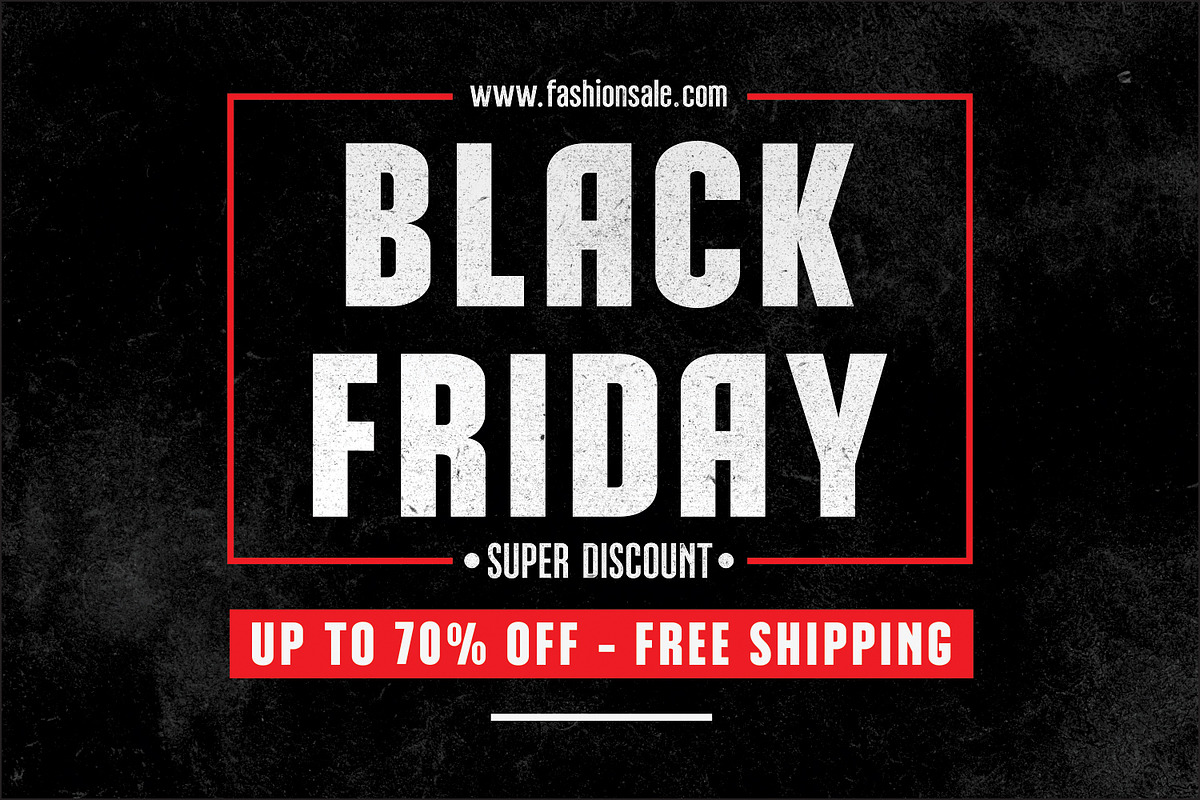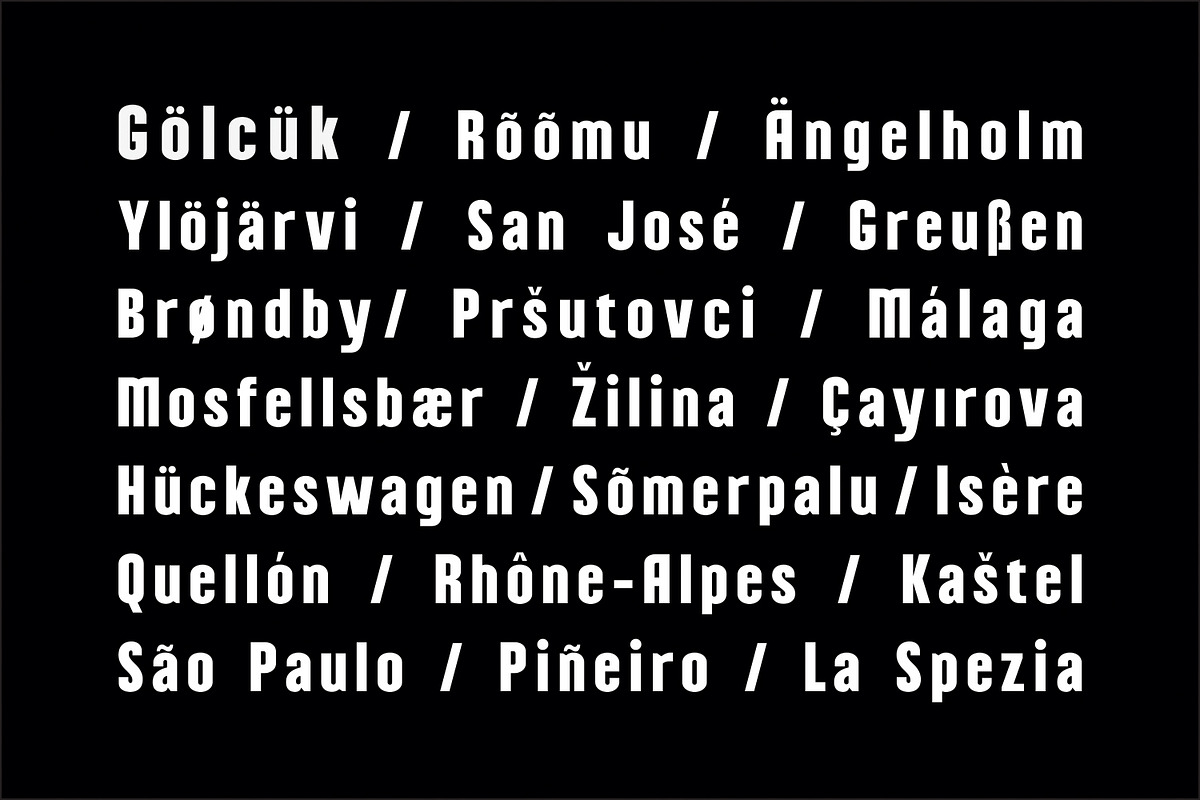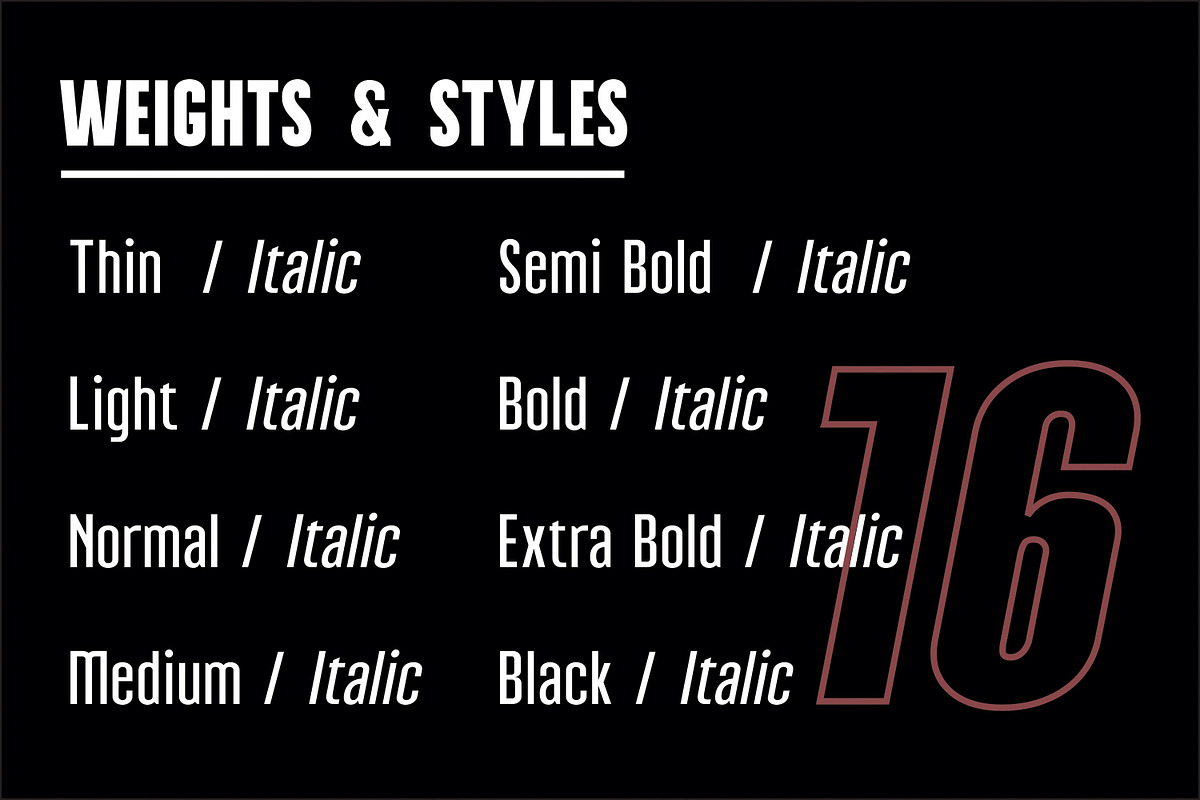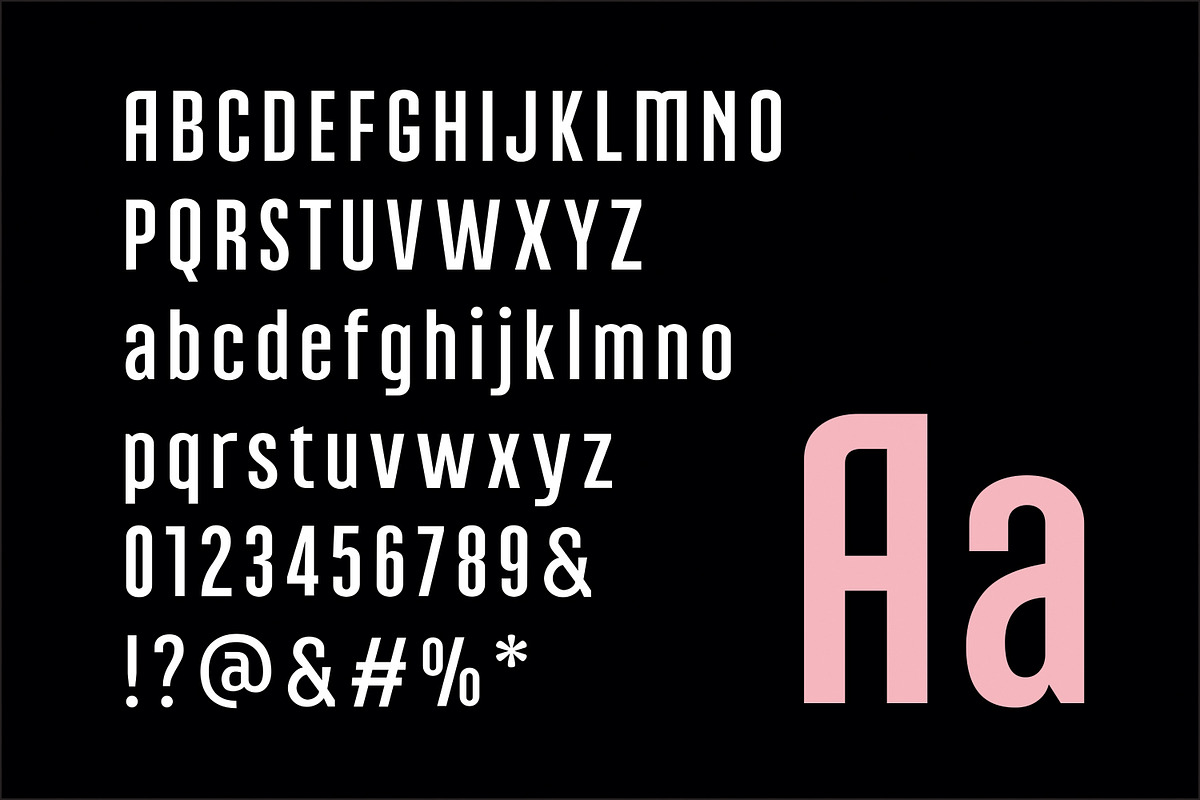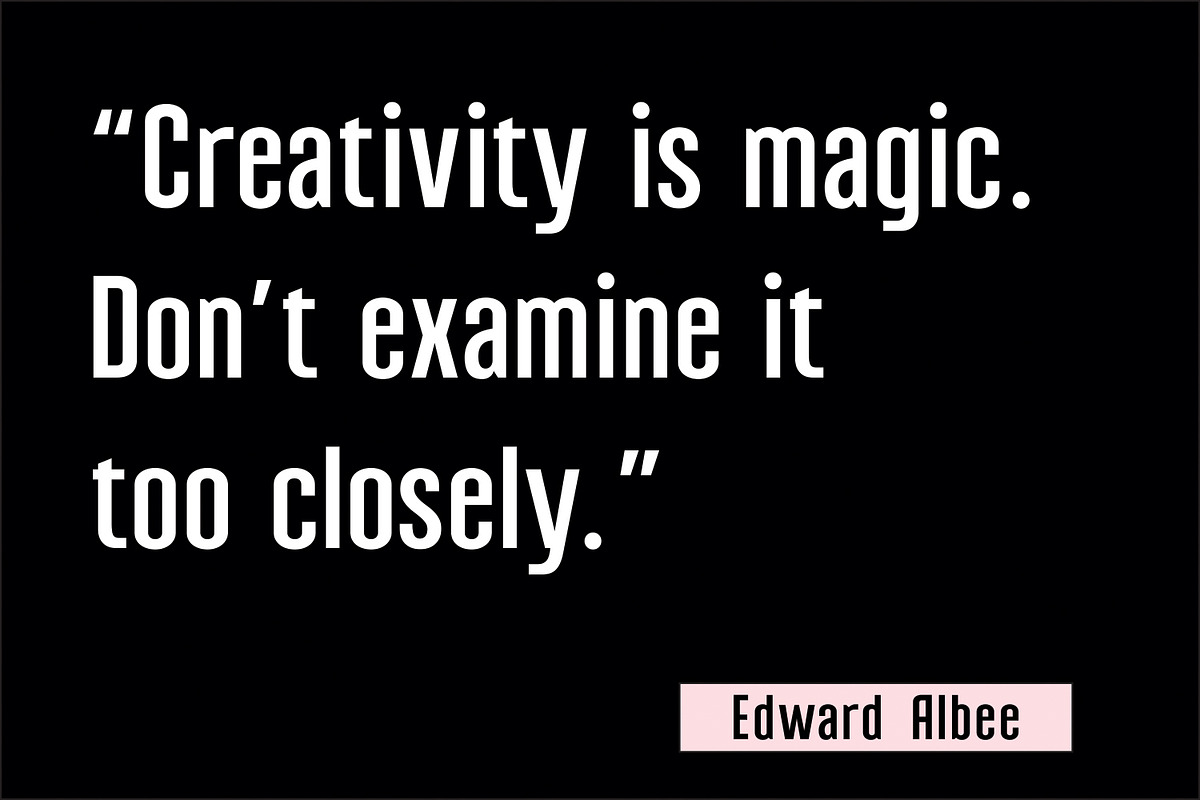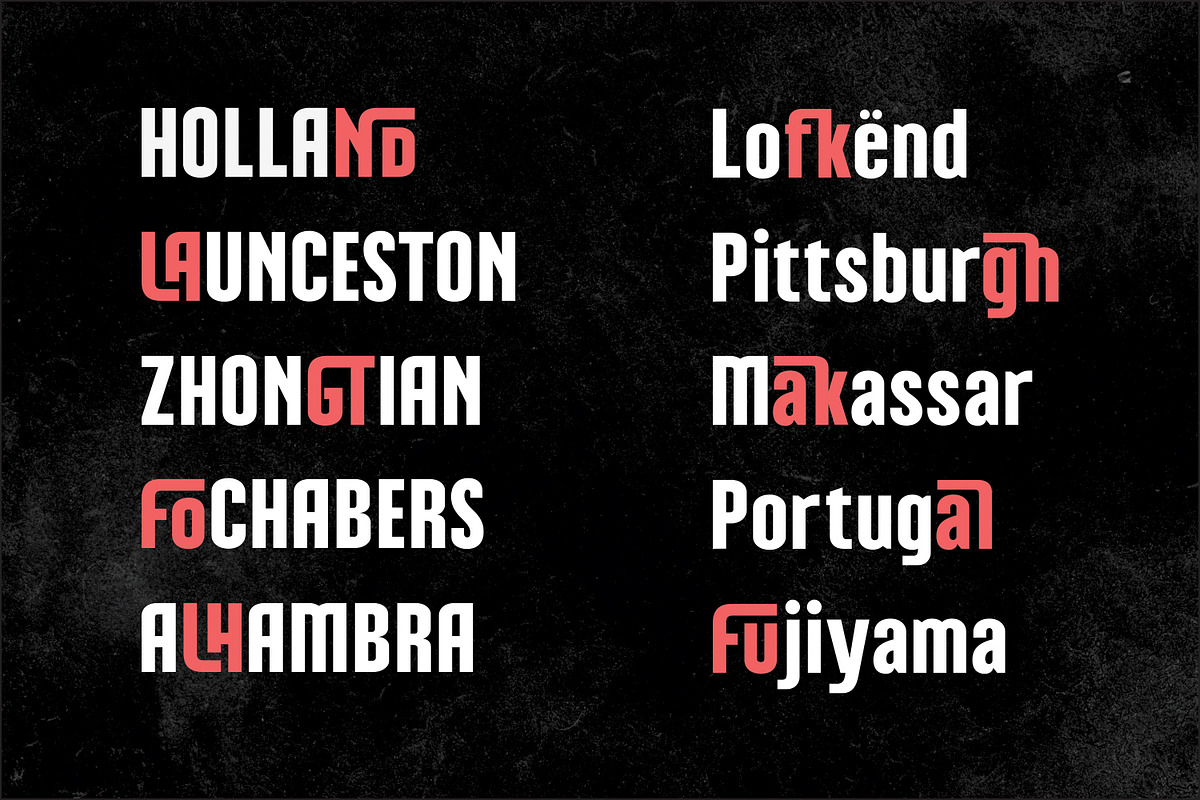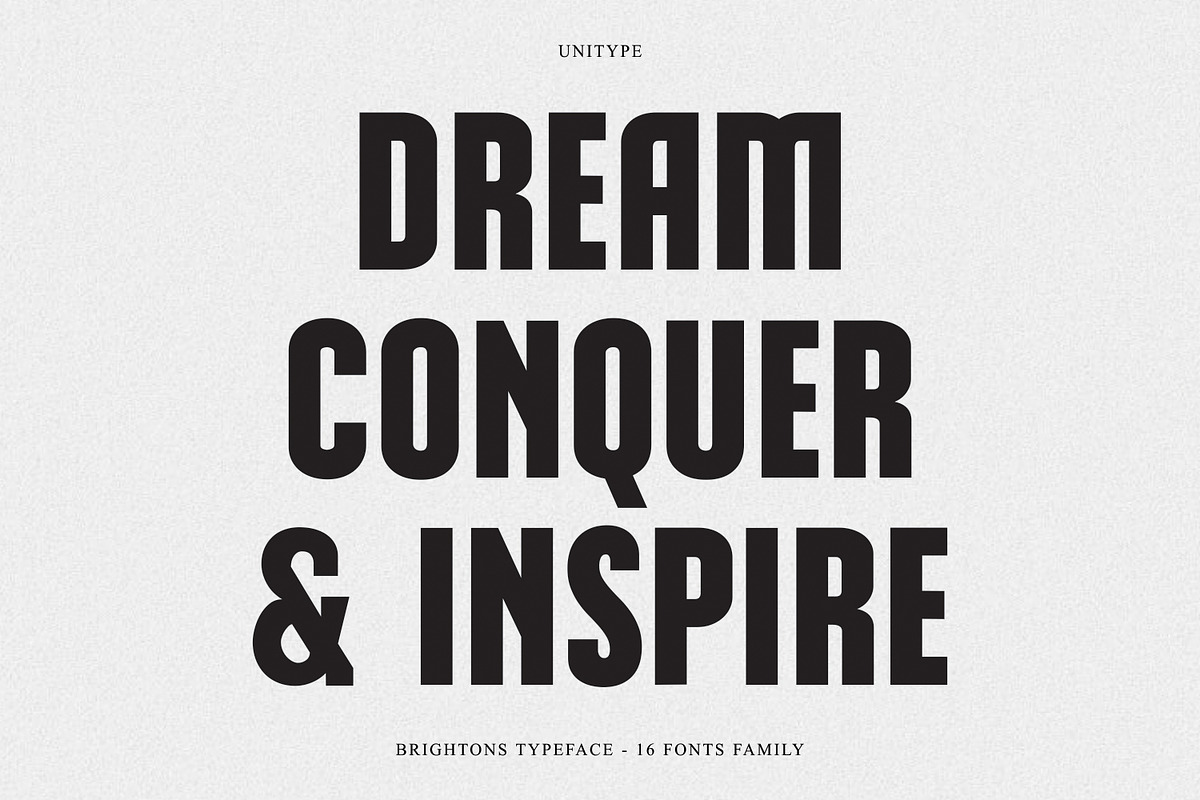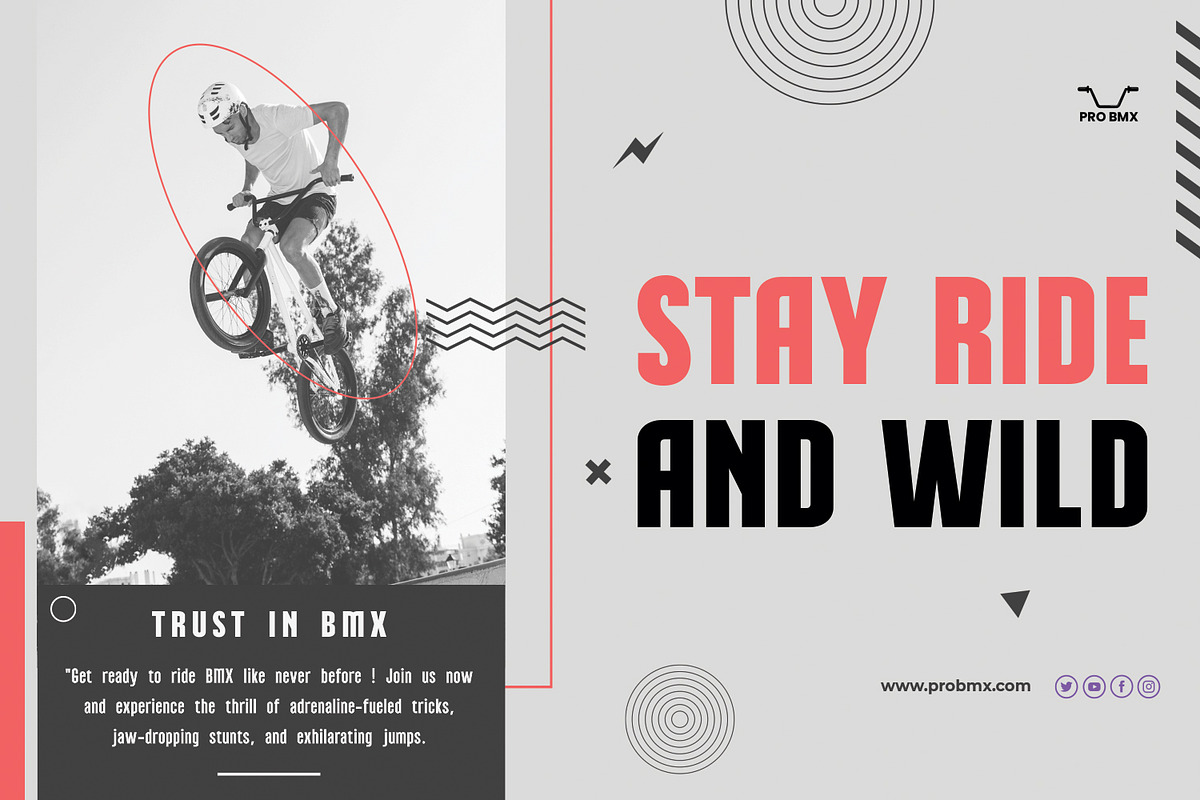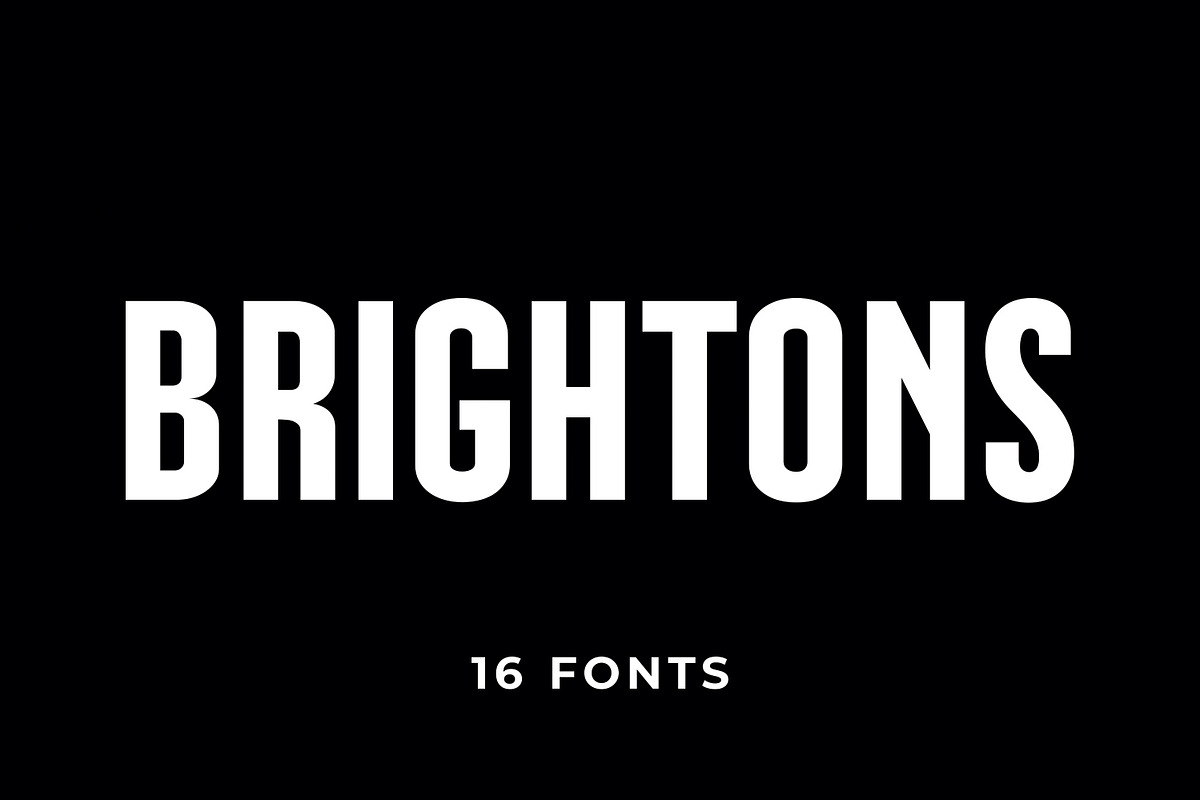
BRIGHTONS - A Powerful Sans Serif
Introducing "BRIGHTONS" Typeface Family: Elevate Your Designs with Versatility and Style. BRIGHTONS Typeface Family presents a stunning collection of 16 unique styles, meticulously crafted to meet all your design needs. With its captivating versatility and modern aesthetic, BRIGHTONS is the perfect choice for a wide range of applications, including posters, banners, advertisements, newspapers, magazines, and web design.
Each style within the BRIGHTONS Typeface Family offers its own distinct personality and purpose, allowing you to effortlessly convey the desired tone and message in your designs. From sleek and sophisticated to bold and attention-grabbing, BRIGHTONS has it all.
Designed with readability in mind, BRIGHTONS ensures that your content remains clear and legible across various mediums. Its meticulous spacing and meticulously crafted letterforms guarantee optimal readability, both in print and on-screen. Your audience will effortlessly absorb your message, allowing you to effectively communicate with them through your designs.
Elevate your design game with BRIGHTONS and unlock a world of creative possibilities. Stand out from the crowd and leave a lasting impression with this versatile and stylish typeface family.